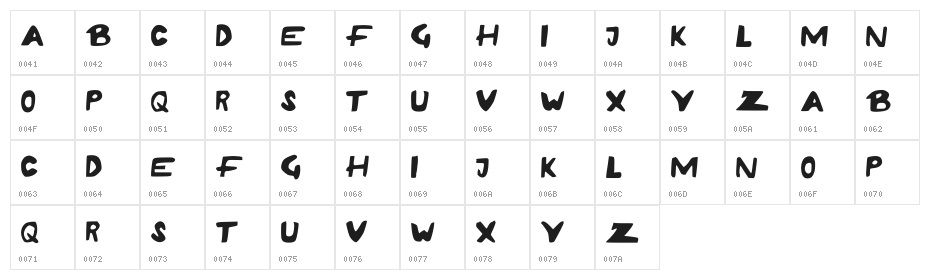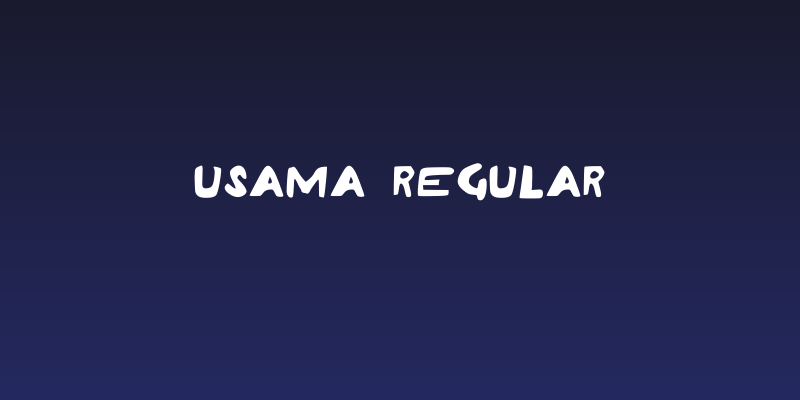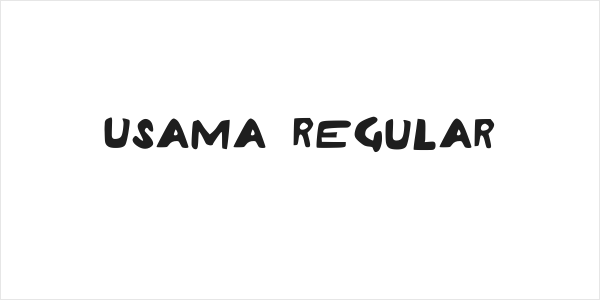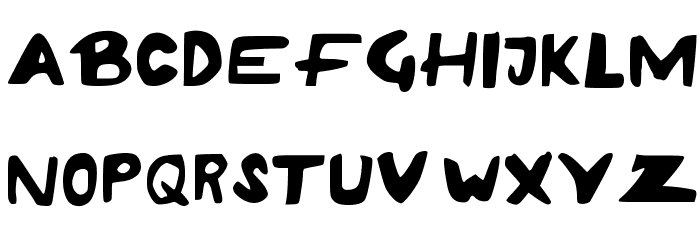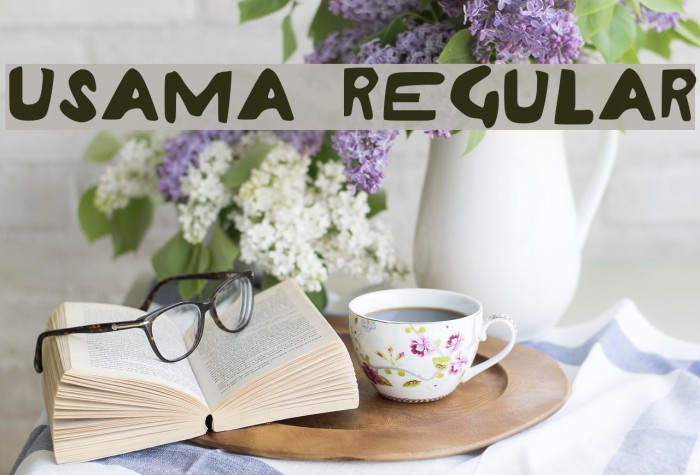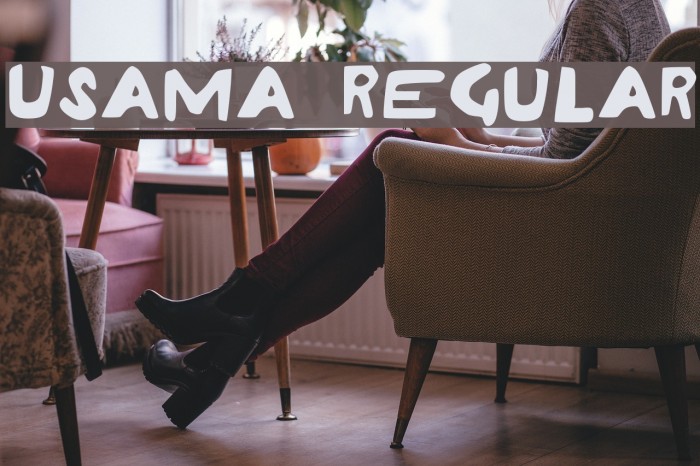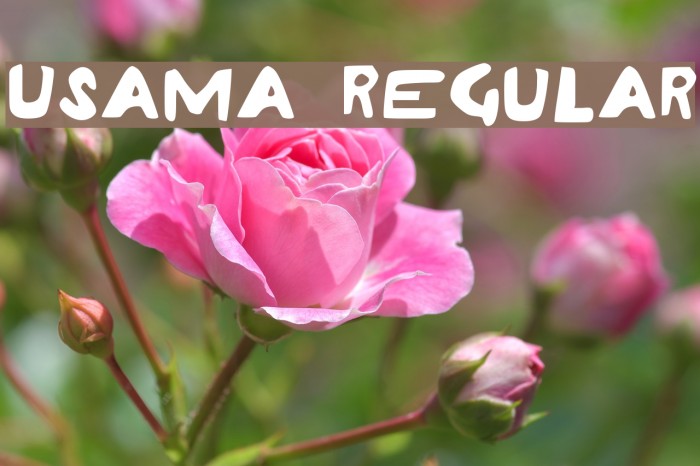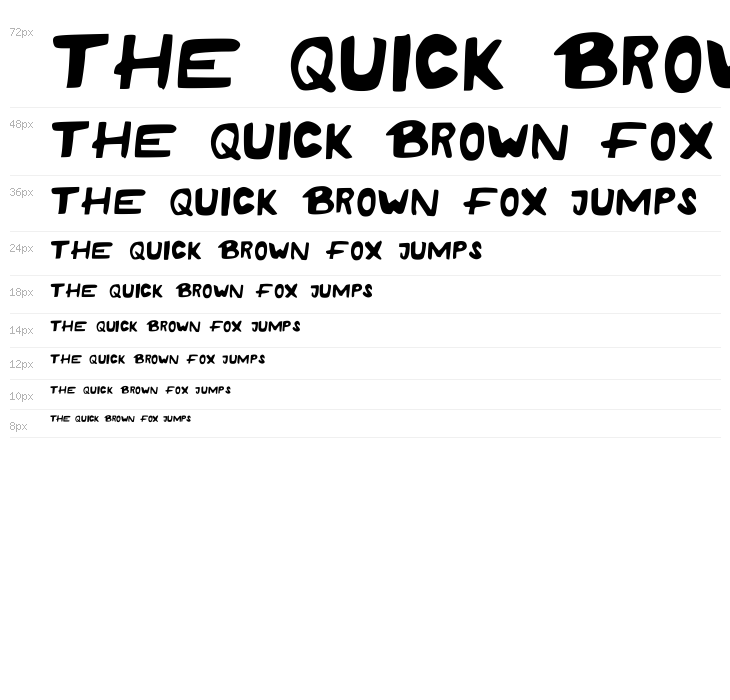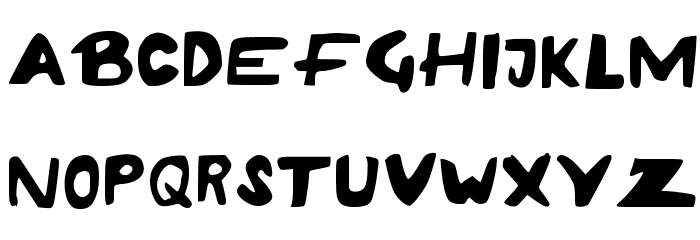
Usama Regular Font
Usama Regular Description
This font features a bold and playful design with a handwritten style that exudes energy and creativity. The characters are thick and rounded, giving them a friendly and approachable appearance. The strokes are uneven, adding a dynamic and informal touch to the overall look. This font is ideal for projects that require a fun and lively aesthetic, such as children's books, posters, and creative branding. The letters are well-spaced, ensuring readability while maintaining a casual vibe.
| Overall Style | Playful, Informal |
| Proposed Projects | Children's books, posters, creative branding, and informal invitations. |